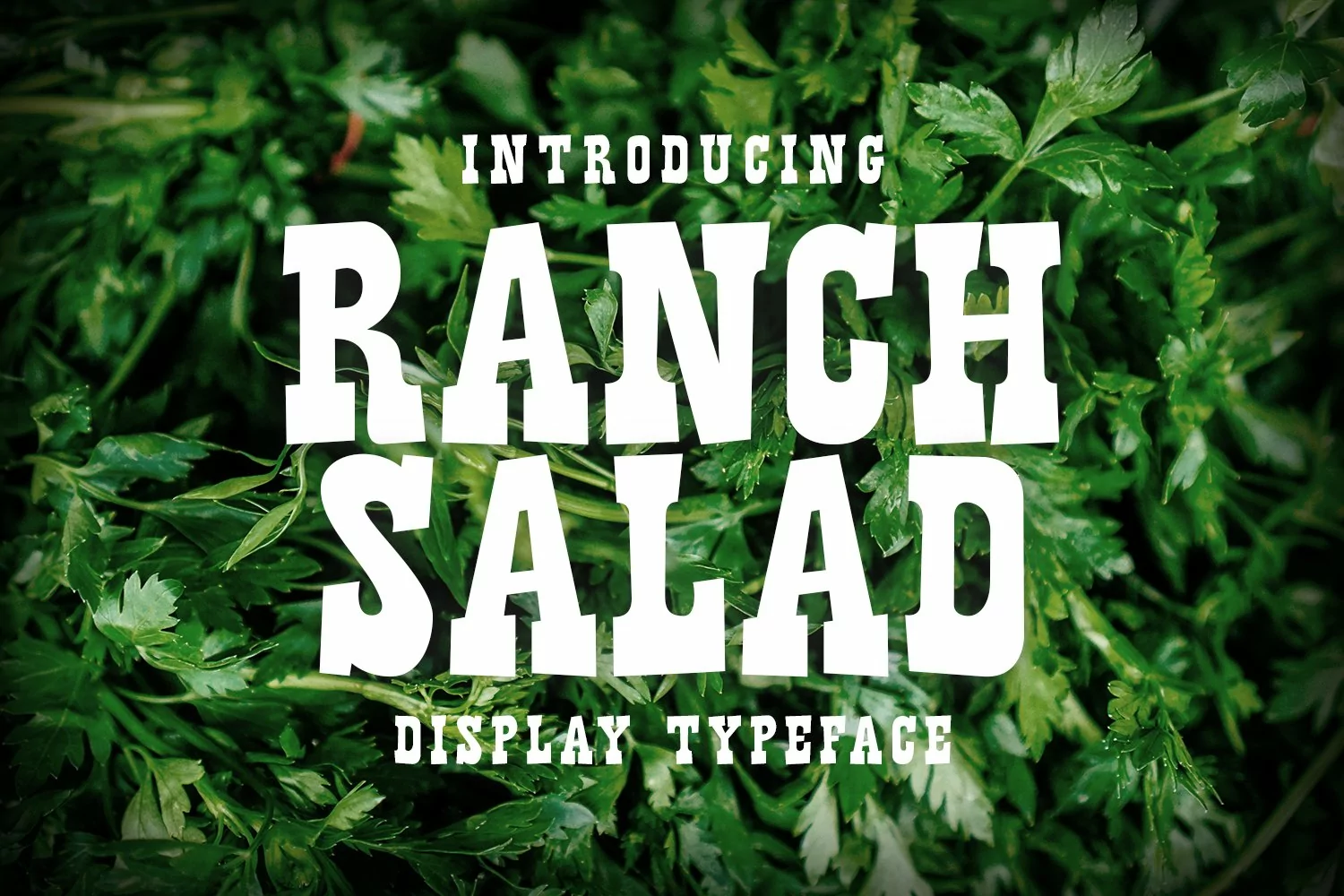
Ranch Salad is a bold and bodacious display font. When a part or the whole of your typography needs some serious impact, look no further than Ranch Salad. The lines are chunky and easily legible. This kind of font is perfect for display, headers, titles and awesome for word art in crafts, on stickers and other design projects.